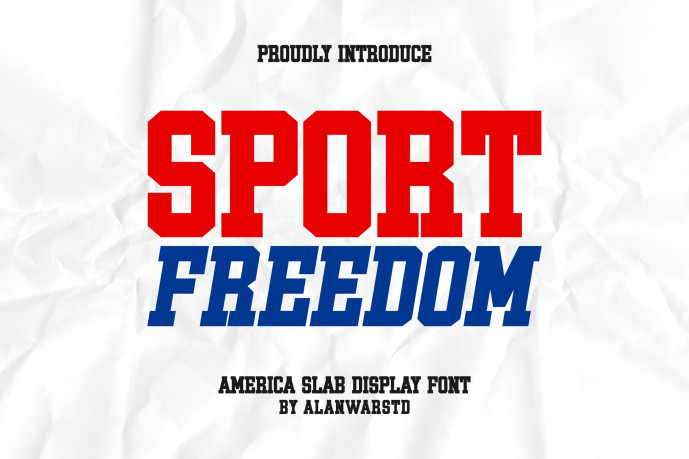
Sport Freedom Font
Designer: alanwarstd
Sport Freedom Font – America Slab Display Font is a bold and authentic display font. The font is suitable for any branding project like logo, esport, and many more. outstanding in a wide range of contexts.